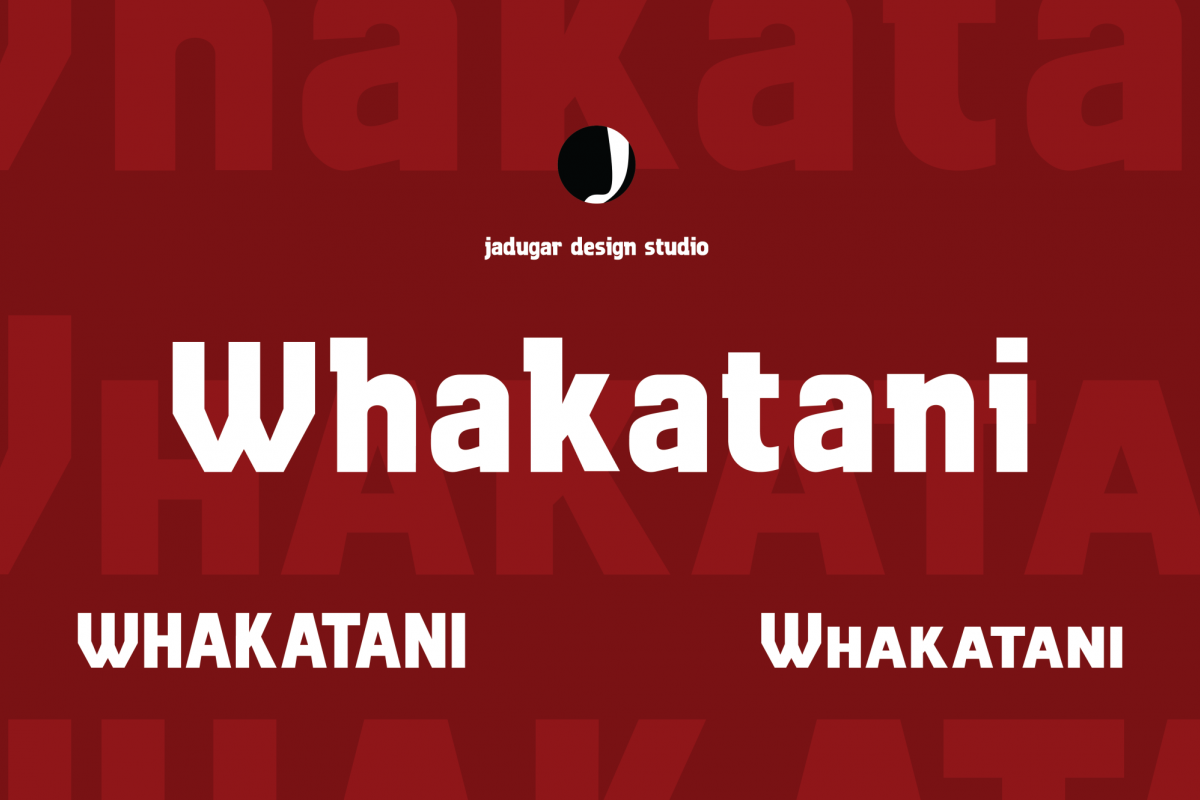
Whakatani Modern Bold Font
**Introducing "LuxeLine": A Stunning New Typeface by Jadugar Design Studio**
Elevate your design projects with the exquisite beauty of LuxeLine, the latest typeface crafted by the visionary minds at Jadugar Design Studio. This newly released font brings an artistic flair and contemporary elegance that makes it the perfect choice for headlines, magazine layouts, posters, and all your creative ventures.
LuxeLine features a harmonious blend of modern curves and classic sophistication, designed to captivate and engage audiences. Its versatility ensures that it effortlessly adapts to any theme or aesthetic, making your projects shine and stand out from the crowd.
Whether you're designing a striking magazine cover, an enticing poster, or an eye-catching website, LuxeLine will provide the perfect typographic presence that complements your vision. Don't miss out on the chance to enhance your font library with this stunning typeface; LuxeLine promises to inspire your creativity and elevate your design game!